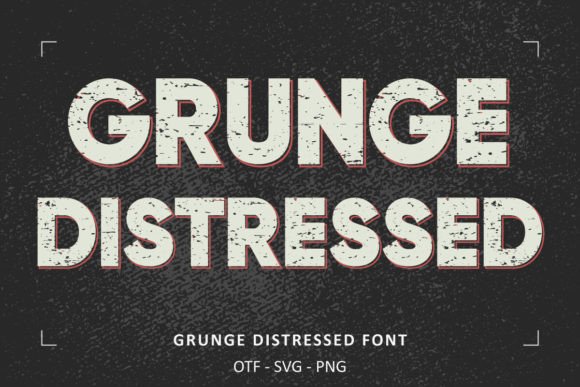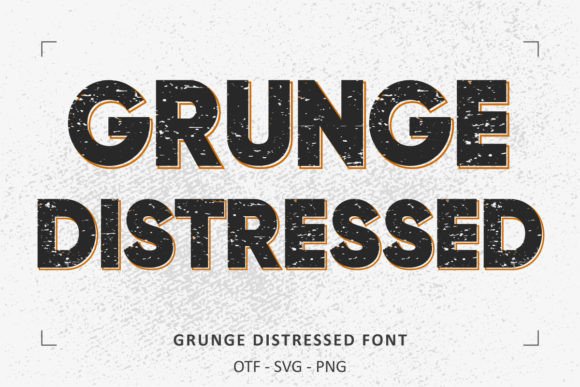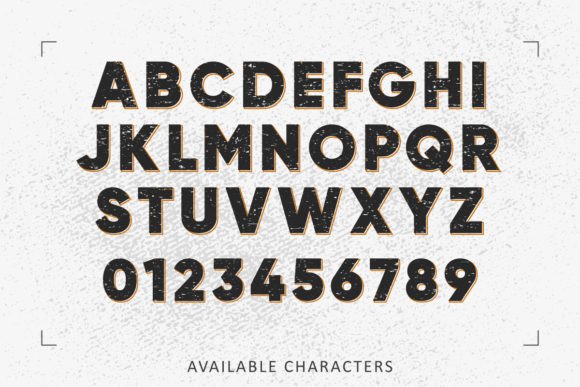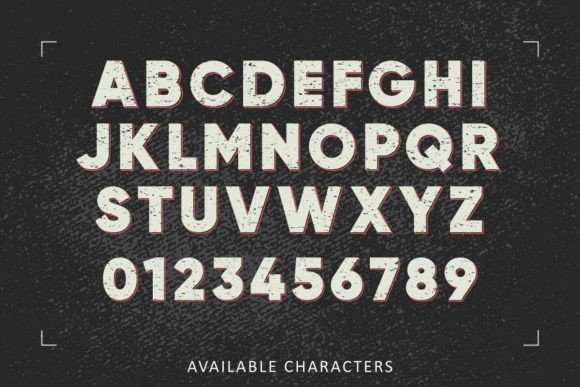
Grunge Distressed Font
About the Grunge Distressed Font
The Grunge Distressed Font offers a perfect balance of form and function for your design needs. Introducing “Grunge Distressed” – a vintage and grunge-distressed display font that will brighten up each of your designs. Perfect for logos, posters, websites, T-shirts and more. Add it confidently to your projects, and you will love the results.
Grunge Distressed excels as a display font for headlines, posters, and branding projects that demand a raw, edgy aesthetic. Its distressed texture works particularly well for apparel designs, vintage-inspired logos, and short impactful statements. However, its low readability makes it unsuitable for body text or UI elements requiring extended reading.
This font’s core personality is bold and rebellious. It projects a sense of grit and authenticity, ideal for brands targeting a younger demographic or those associated with street art, music, or alternative culture.
Pairing Grunge Distressed with a clean sans-serif like Open Sans for body copy creates a strong visual contrast, balancing its rugged texture with sharp, modern clarity. For a more vintage feel, consider pairing it with a serif font like Playfair Display.
Grunge Distressed Font Usage Examples
Grunge Distressed Font Example